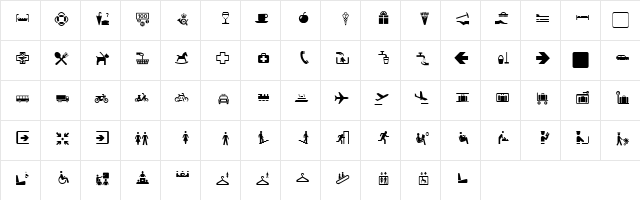
PT Unisyms Normal
Design Context for PT Unisyms Typeface
PT Unisyms takes a measured approach to typography — its balanced proportions and neutral character make it a reliable workhorse for both digital and print work.